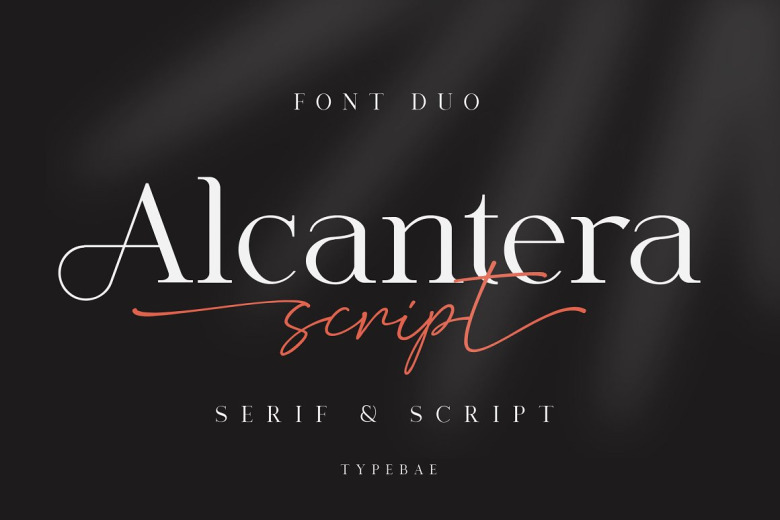
Alcantera Font Duo
Alcantera Font Duo comprises two typographic faces crafted to enhance one another through opposing yet harmonious aesthetics. The serif type evokes tradition through fine details that have stood the test of time, while the scriptface brings vivacity with flowing forms both graceful and modern. One might also deploy the pairing for announcements online or on paper where personality and panache are desired in measured doses.